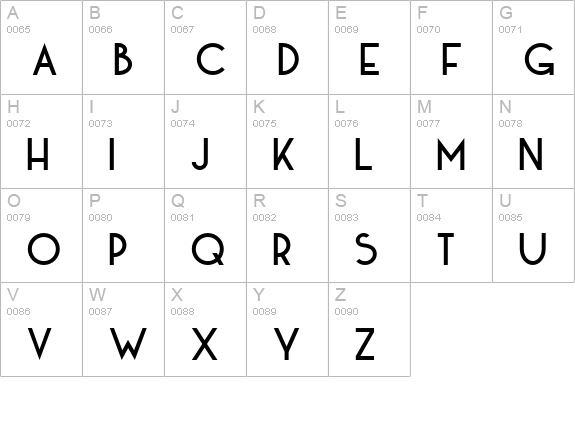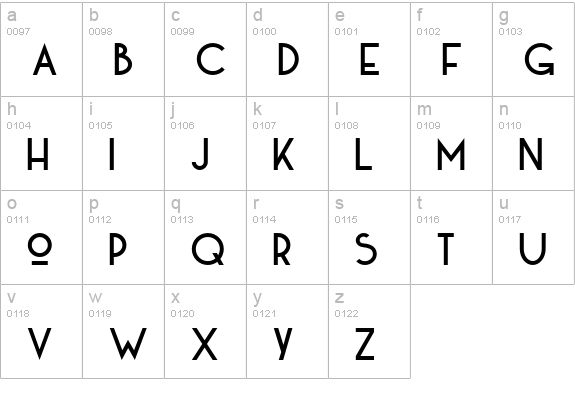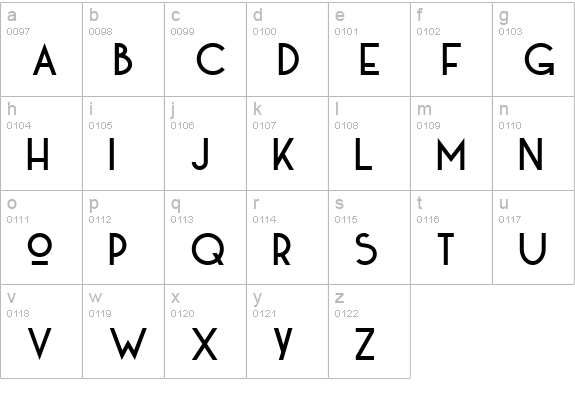
DK Kaikoura Font Details
Introducing DK Kaikoura, a stunning font that effortlessly combines elegance and modernity. With its clean lines and unique, geometric shapes, DK Kaikoura is the perfect choice for a wide range of design projects. This versatile font is ideal for both digital and print applications, including logos, branding, editorial design, packaging, and more. Its balanced proportions and refined letterforms ensure legibility at any size, making DK Kaikoura a font that stands out in both large headlines and small body text. But what sets DK Kaikoura apart is not only its exceptional design but also its accessibility. We are thrilled to offer this remarkable font for free, allowing designers and creatives of all levels to enjoy and utilize its beauty. To access DK Kaikoura, simply visit FontsMarket.com, where it is freely available to download. This means that you can enjoy the benefits of this exceptional font without any cost, making it a valuable addition to any design arsenal. Don't miss out on the opportunity to enhance your designs with the elegance and versatility of DK Kaikoura. Download it today and unleash your creativity with this remarkable font.